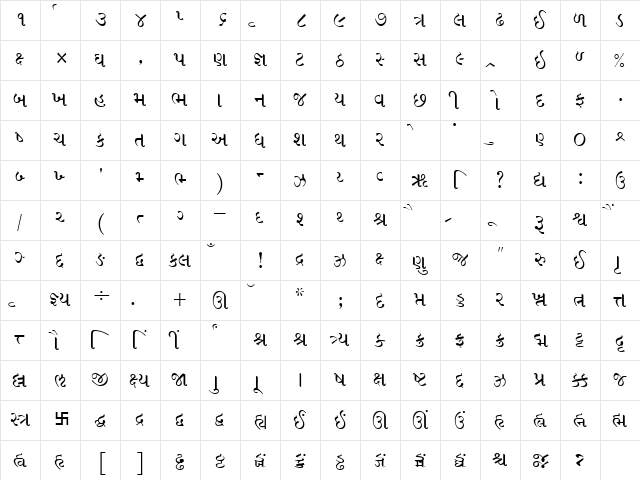
TERAFONT-CHANDAN Normal
Design Context for TERAFONT-CHANDAN Typeface
TERAFONT-CHANDAN brings a calligraphic fluidity to the page — its connecting strokes and expressive curves give it an unmistakably human quality.